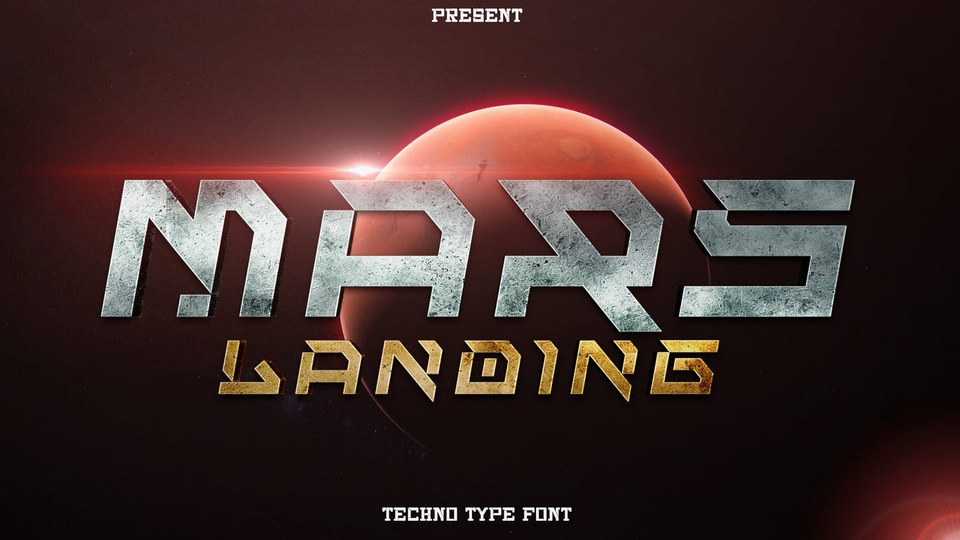
Download Mars Landing font, a futuristic techno typeface. Mars Landing font suits perfectly for future and science segmented magazines, posters, movie titles, music posters and more.